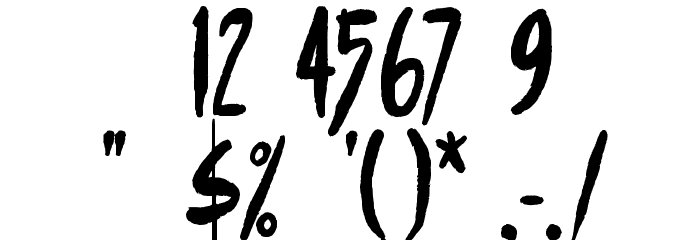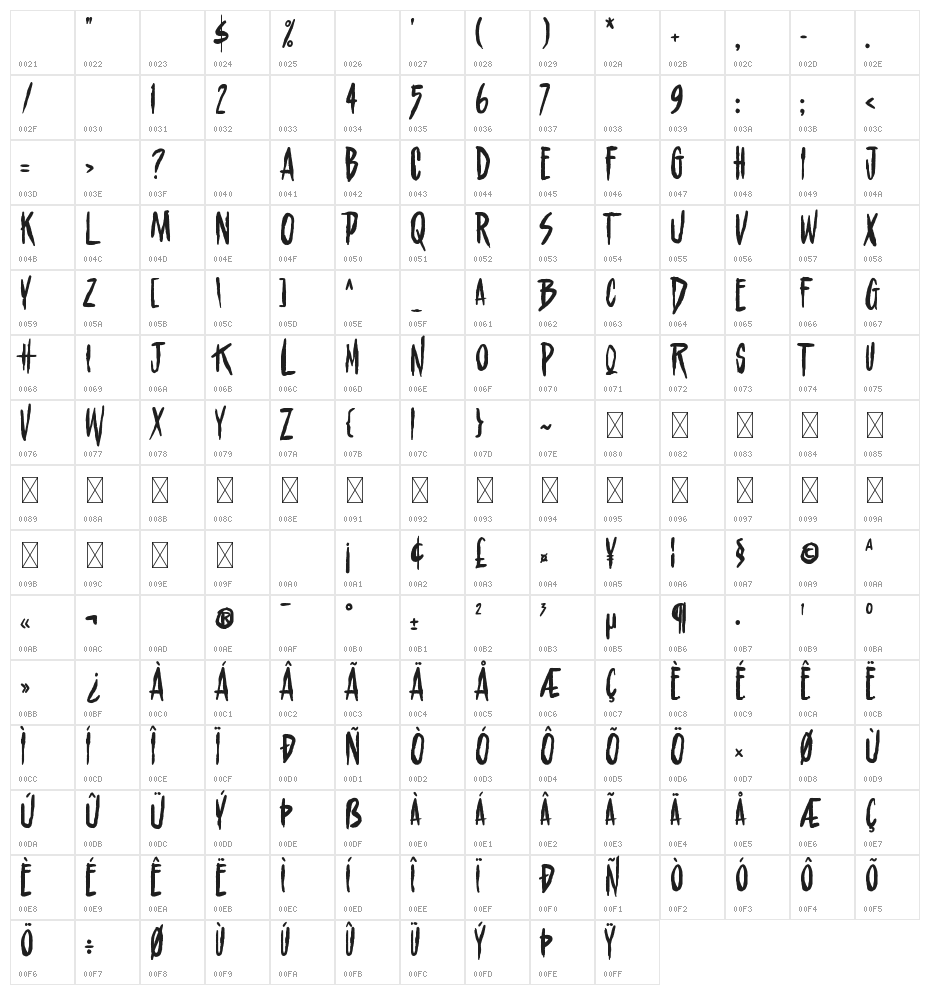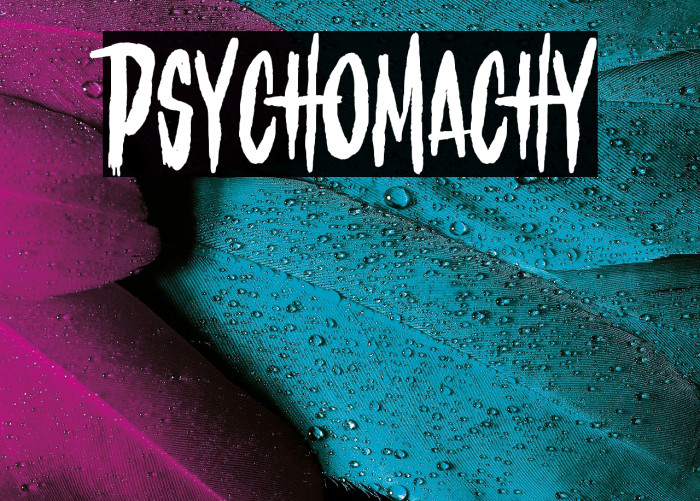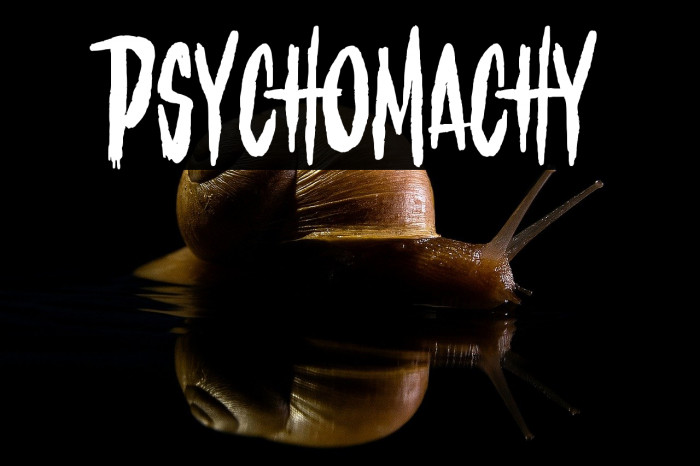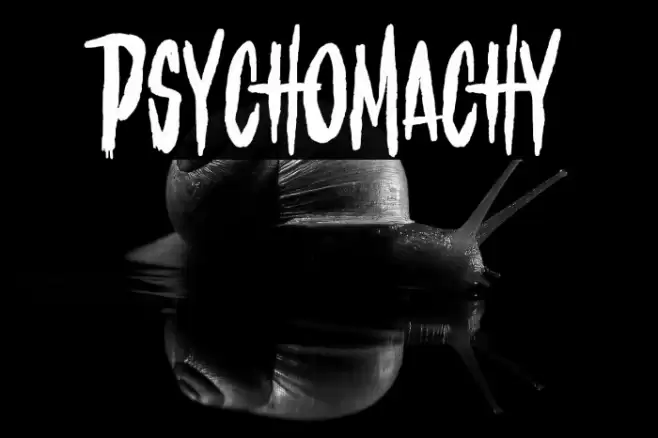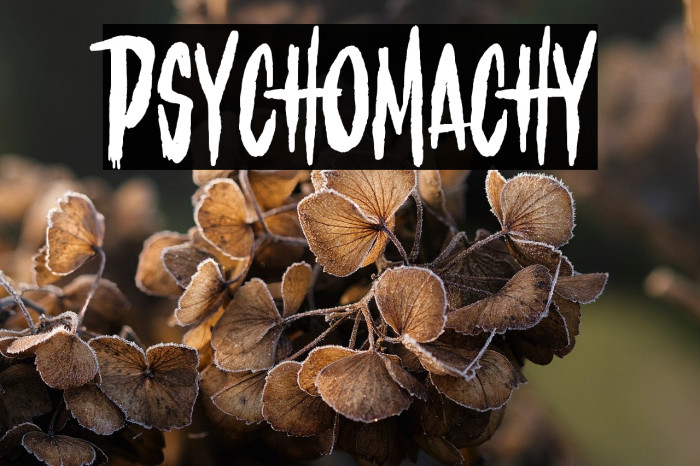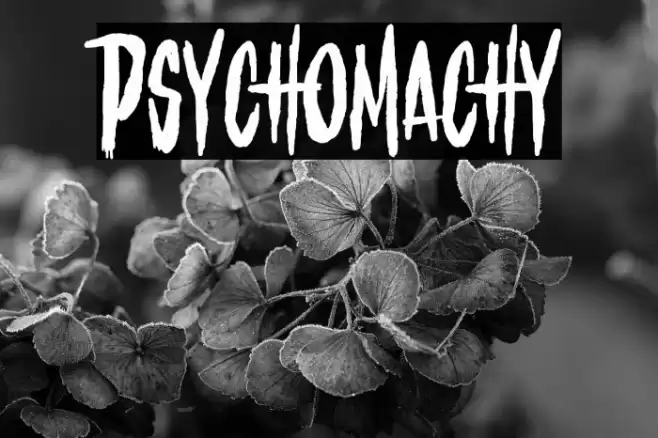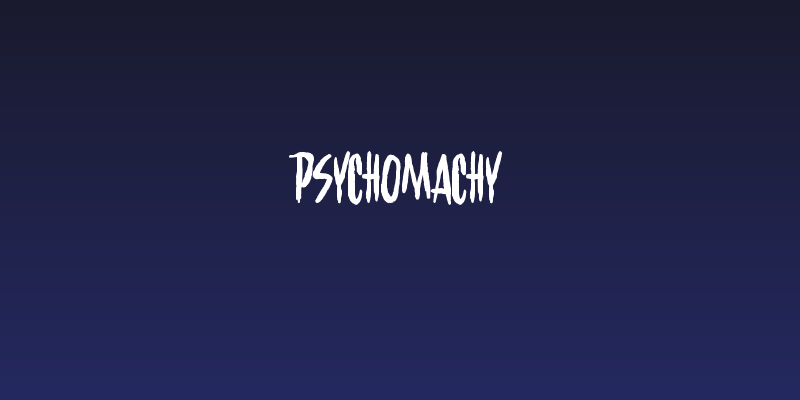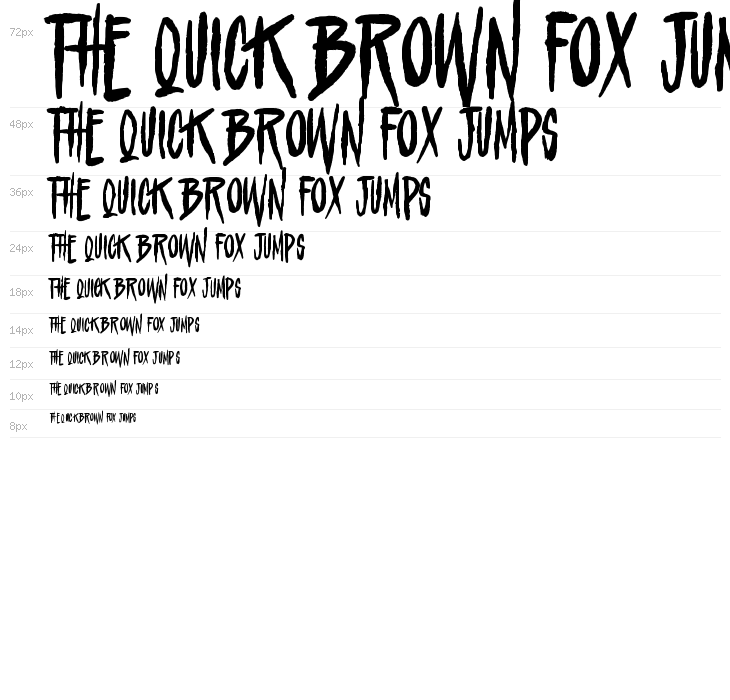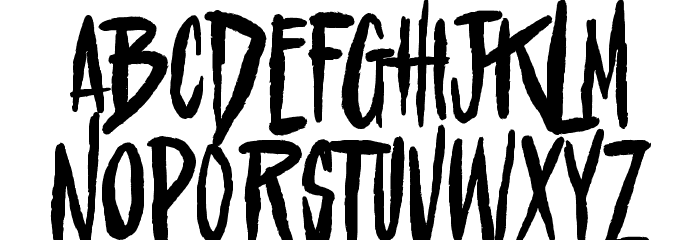
Psychomachy Font
Psychomachy Description
This font features a bold and expressive handwritten style, characterized by its tall, narrow letterforms and slightly irregular strokes. The uppercase and lowercase letters maintain a consistent height, creating a cohesive look. The numbers and special characters follow the same stylistic approach, ensuring uniformity across all glyphs. The strokes are thick and dynamic, giving the font a strong presence, while the slight variations in line thickness add a touch of personality and authenticity. This font is ideal for projects that require a personal, artistic touch, such as posters, album covers, or creative branding.